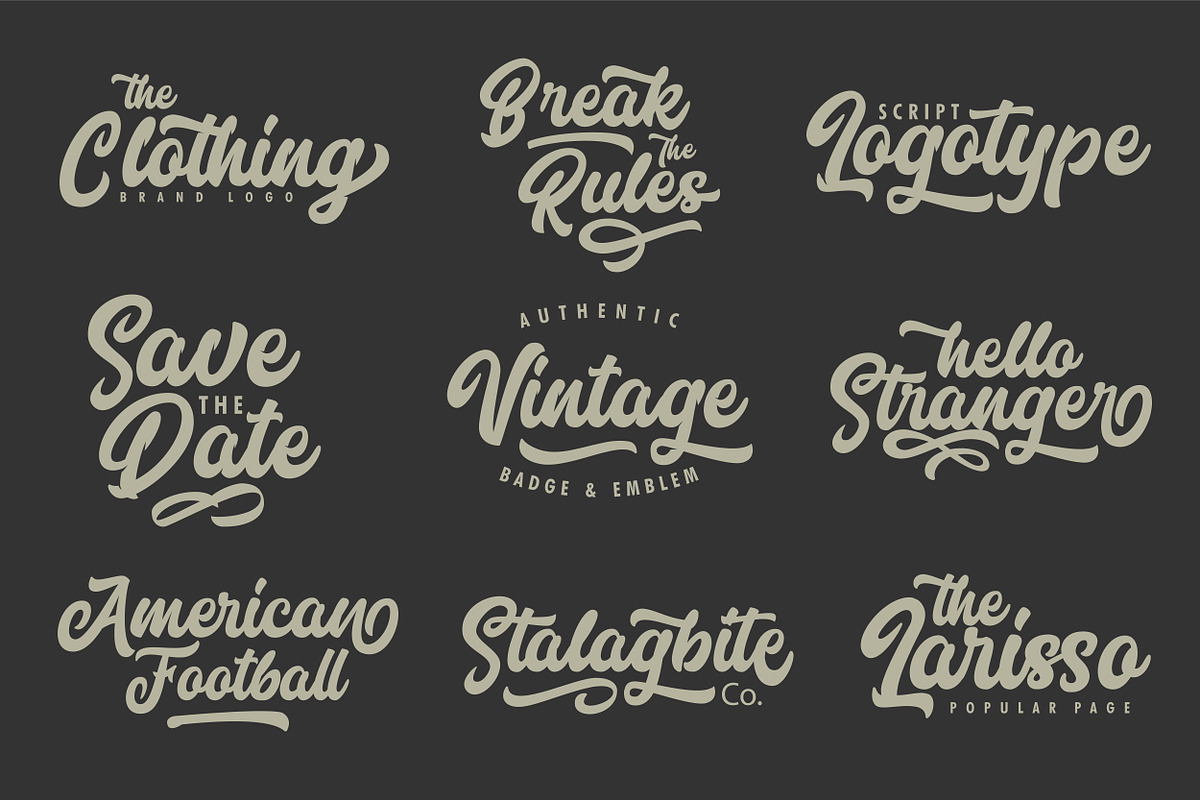
Marttabuck Script
Please introduce, Marttabuck Script The bold and straight-forward look script. This script comes with two type, the regular and special. The special type has its unique tiny slices which gives more personal touch and makes the font looks being customized. This font is suitable to use as a logotype, apparel, wedding invitation, signboard, sport club, motor / car, etc. This font has many opentype features like ligature, stylistic alternate, contextual alternate, swash, etc and support multi language.